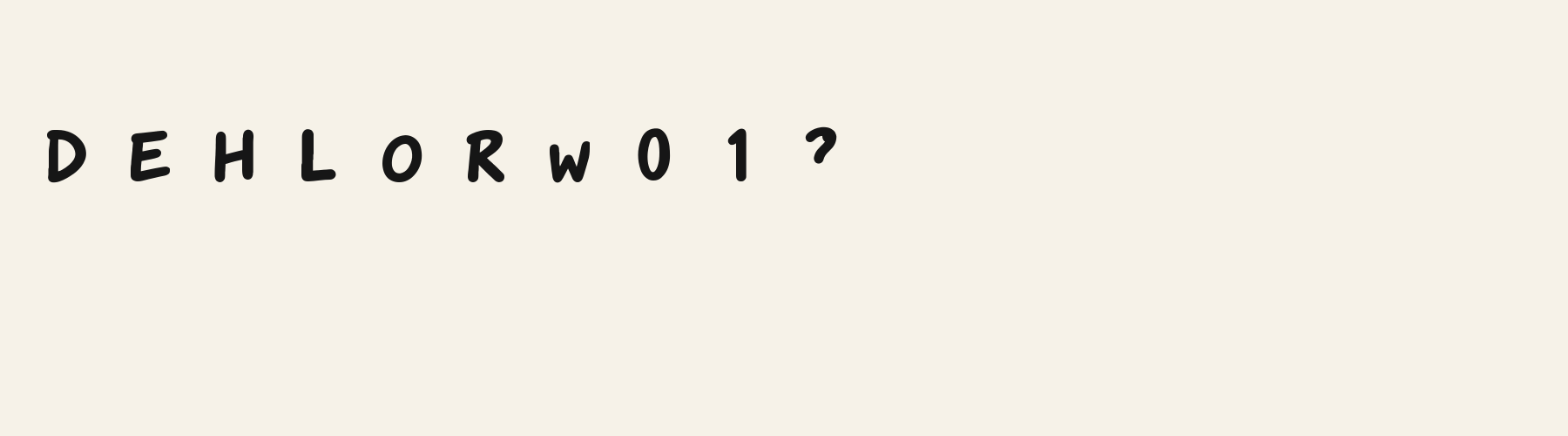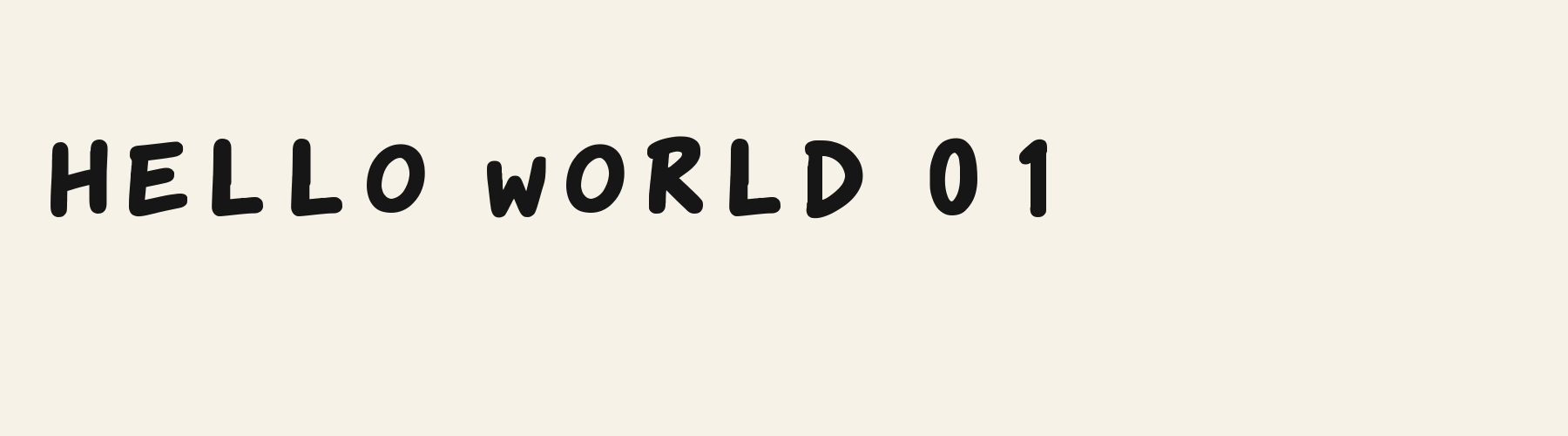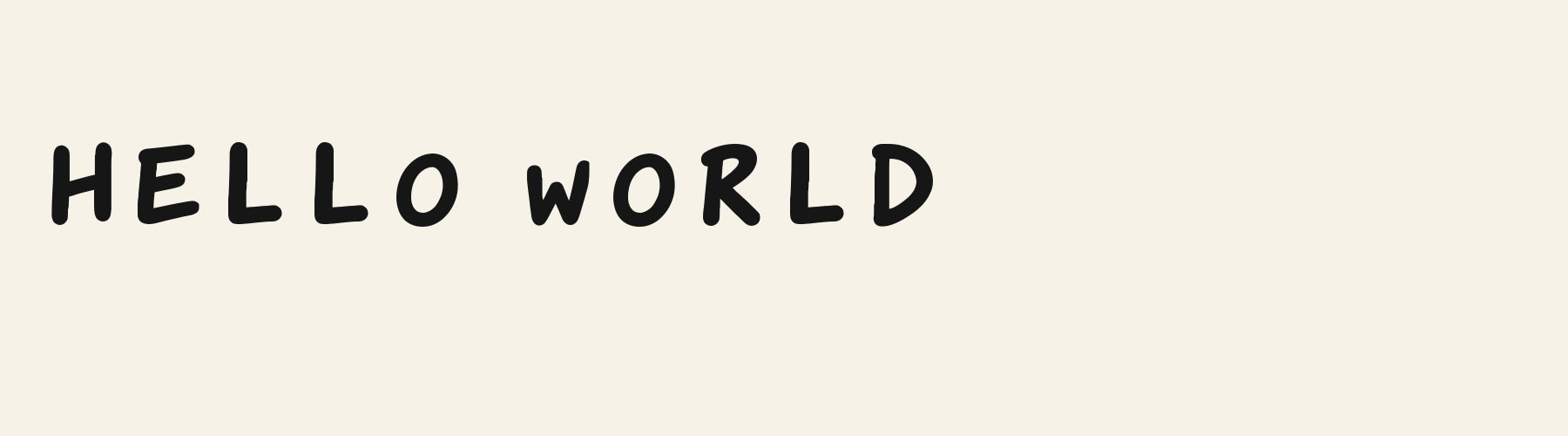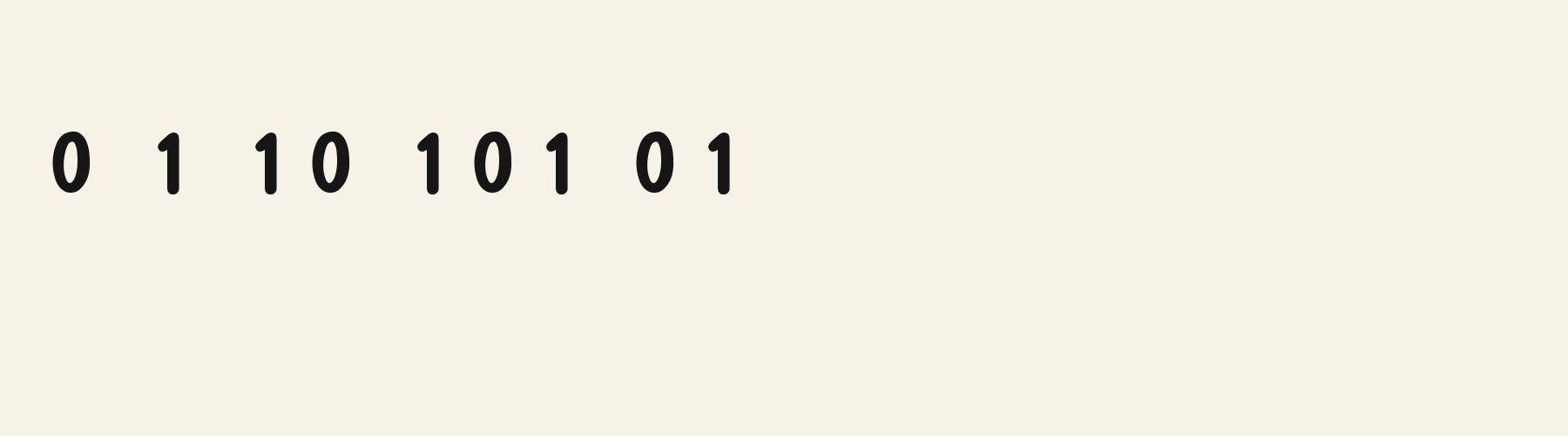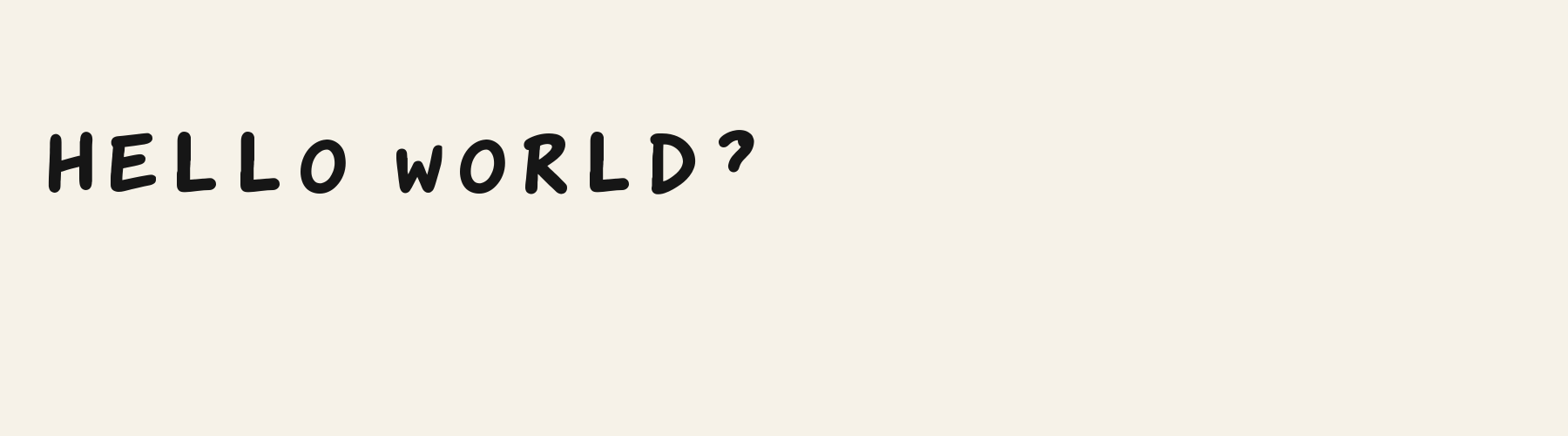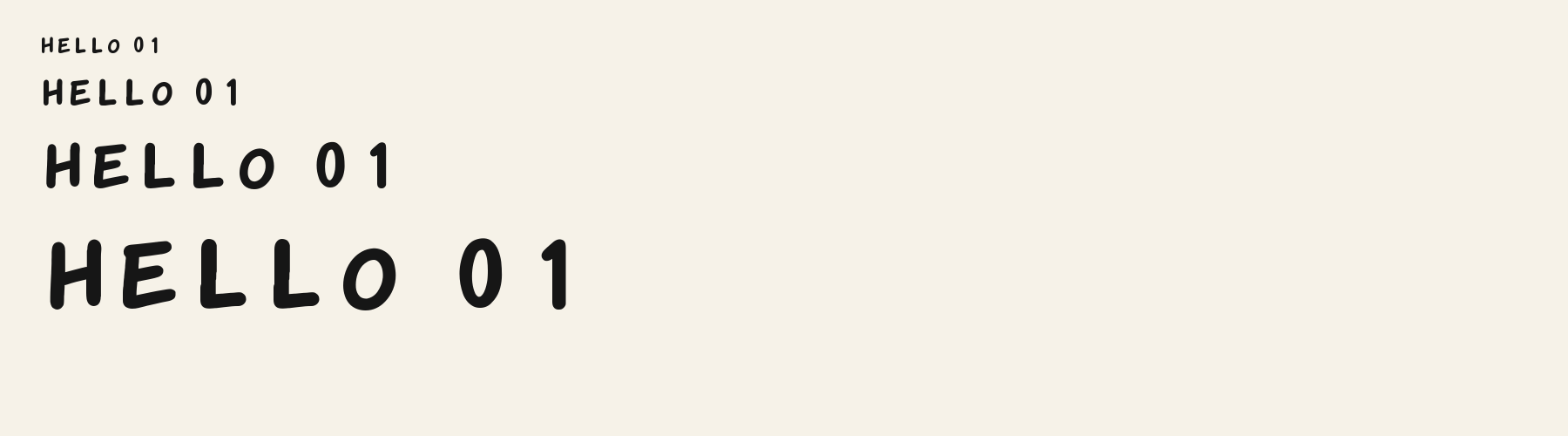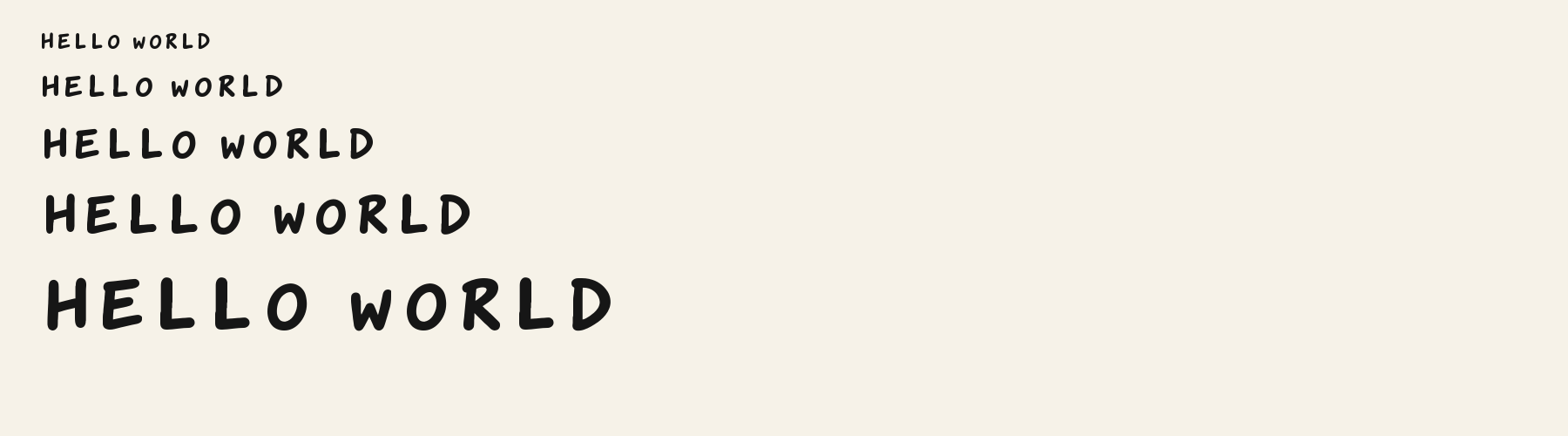
Marker Felt Round combines thick, nearly even strokes with smooth caps and softly irregular outlines.
Marker Felt Round combines thick, nearly even strokes with smooth caps and softly irregular outlines. The E lifts its arms toward the right, while the L ends in a broad foot with a gently rising tip. The O holds an open oval counter inside a substantial black outline, giving repeated letters a plump, steady rhythm. Small changes in angle keep the capitals casual without making the line feel restless. The strokes meet in dark, compact joins, and the rounded endings soften the weight. Together, these details give short wording a friendly, emphatic presence.
Check repeated L feet, the R junction and oval counters in your actual wording, especially when reducing the preview. Compare letter gaps with word spaces. These specimens show Latin capitals; preview lowercase separately, and verify accented Latin or other scripts with a suitable companion font.
Try this face for short headings or expressive labels, with a lighter, regular sans serif for explanations. Its thick strokes and rising letter arms already supply character, so a companion with restrained shapes could keep supporting text visually distinct.
Compare the original spacing with a slightly wider setting. The repeated L feet and broad O shapes create a dense rhythm; extra space may separate those shapes, but check whether it makes the word space feel disproportionately open.
Marker Felt Round has thicker strokes, broader oval counters and flatter L feet. Its compact, dark word shapes suit a short message that needs a substantial, friendly presence.
Feral Willow Script has thinner, taller-looking forms, sharply rising L feet and an H crossbar that projects leftward. Try it when the same message calls for a lighter, more angular handwritten rhythm.
The scenes are illustrations drawn on this page with Marker Felt Round itself, not client work.
Marker Felt Round's lowercase x reaches 72.5% of the capital height, close to the 73.2% median for handwriting fonts, lower than 16 of the 29 other handwriting fonts. Ascenders on b, d, h, k and l rise 16.5% above the capitals, and descenders on g, j, p, q and y drop 23.8% of the cap height below the baseline, shallower than 23 of the 29 other handwriting fonts. Marker Felt Round runs 7% narrower than the median for handwriting fonts: an average lowercase letter, spacing included, is 67.3% as wide as the capitals are tall (an average capital, 85%). The o is an upright oval, 0.79 times as wide as it is tall, and M is the widest capital, at 1.16 times the width of H. The O tops out level with H and dips 0.5% below the baseline.
Vertical stems measure 19.8% of the cap height, heavier than 17 of the 18 other handwriting fonts. Ink covers 43.5% of each lowercase letter's box (its advance width by the cap height), darker than 27 of the 29 other handwriting fonts. It is close to monoline, with the sides of o and O 1.06 times as thick as their tops and bottoms. Marker Felt Round comes in Regular and Bold; Bold puts down 10% more ink than Regular.
Its 95 characters include 52 Latin letters, plus 43 figures, punctuation marks and symbols; there are no accented Latin letters beyond A to Z. The word space measures 48.5% of the cap height, and the blank space either side of a lowercase letter takes up 15.2% of its width. The font carries no kerning, so spacing comes from each letter’s own side bearings. The figures have different widths, so columns of numbers set in Marker Felt Round will not line up exactly.
Includes all 95 printable Basic Latin characters, 95 characters in total.